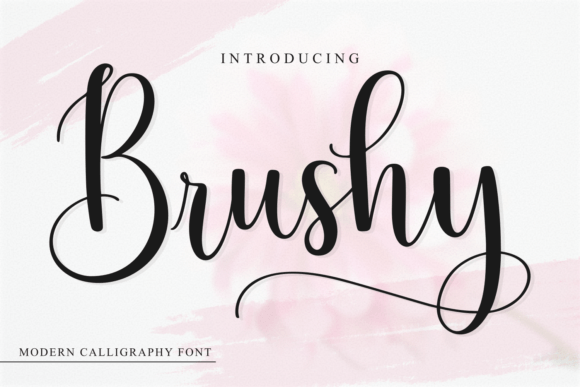
Introduction to Brushy Font
Introducing a captivating calligraphy font that effortlessly blends simplicity with sophistication.
This font exudes an understated elegance, featuring gracefully crafted characters that lend a touch of refined charm to any project Ideal for invitations, branding, and creative endeavors, this font transforms simplicity into a statement of timeless beauty, adding a touch of grace to your every word.
Key Features of Brushy Font